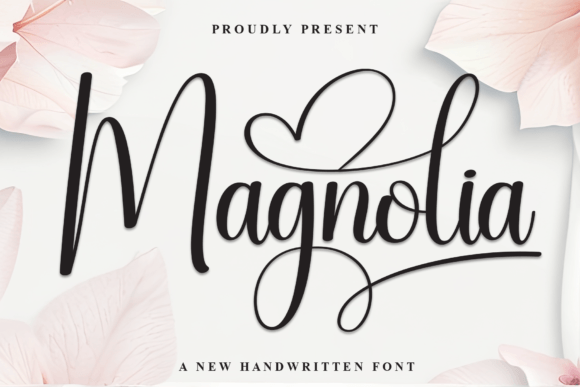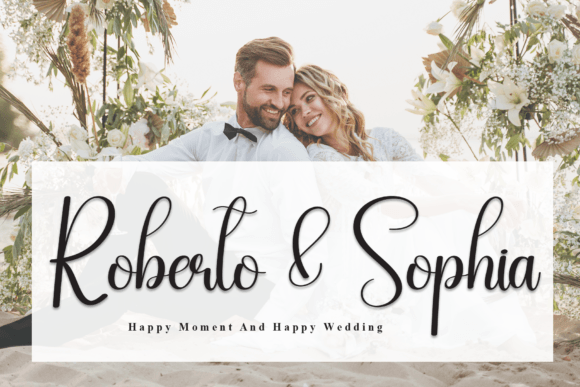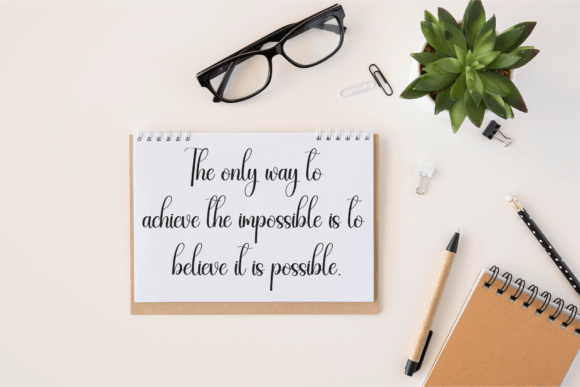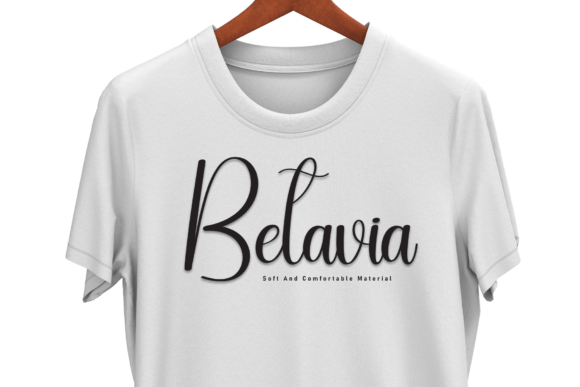
Magnolia Font: Elegant Script for Wedding Invitations & Branding
About the Magnolia Font
Add a touch of class to your work with the Magnolia Font, a truly exceptional typeface. Magnolia is a fancy, elegant font that looks like beautiful handwriting. It’s perfect for adding a touch of luxury and style to your designs.
Magnolia’s elegant, script-like qualities make it ideal for headlines, short text blocks on invitations or greeting cards, and branding elements requiring a touch of sophistication. It shines in logo design, packaging for luxury goods, or short impactful quotes within marketing materials. However, its delicate nature makes it unsuitable for body text or UI elements; readability suffers at smaller sizes and within long paragraphs.
Consider pairing Magnolia with a clean sans-serif like Lato for a modern contrast, or a classic serif such as Garamond for a more timeless feel. For a playful yet balanced effect, a geometric sans-serif font like Montserrat could work well. The key is to choose a complementary typeface that provides strong readability where Magnolia may fall short.
Magnolia projects an air of refined elegance and understated luxury. It suits brands focusing on high-end products, boutique services, or events emphasizing sophistication and style. Its personality is best described as graceful and sophisticated rather than bold or playful.
Magnolia Font Usage Examples
Magnolia Font Example